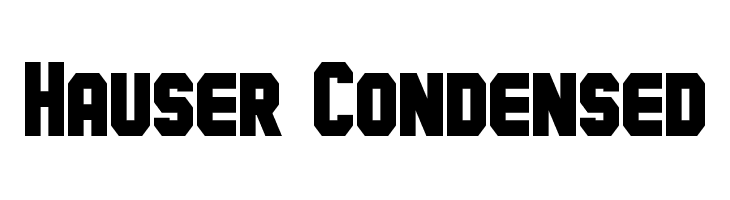
A bold, geometric font with a strong, industrial style.
A bold, italicized font with sharp angles and a modern, dynamic style.
A bold, geometric, and condensed font with a modern industrial style.
A bold, condensed font with a geometric and powerful style.
A bold, italic, and condensed font with high contrast and dynamic angles.
Bold, italicized, and condensed with sharp angles for a dynamic look.
A bold, geometric italic font with a futuristic and dynamic style.
A bold, oblique font with a dynamic and angular design.
A bold, edgy font with sharp, angular lines and a distressed, dynamic appearance.
A bold, rugged font with a distressed, carved appearance.